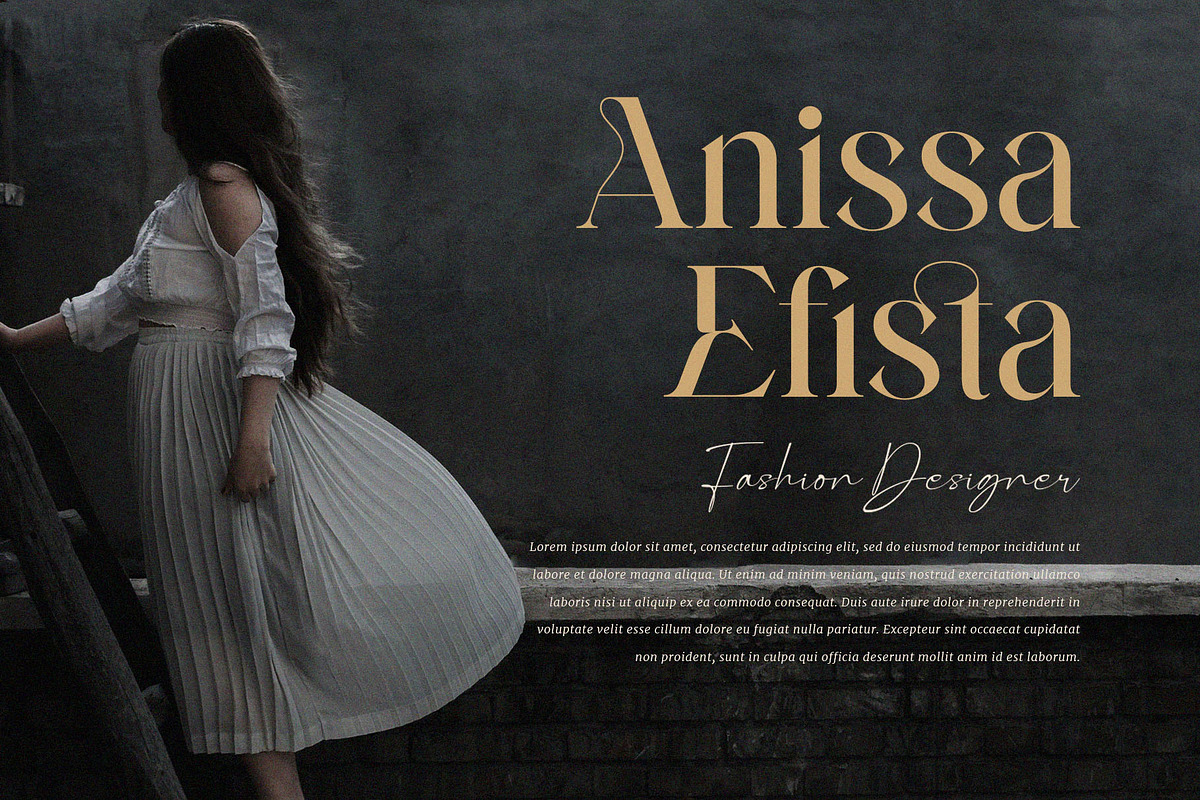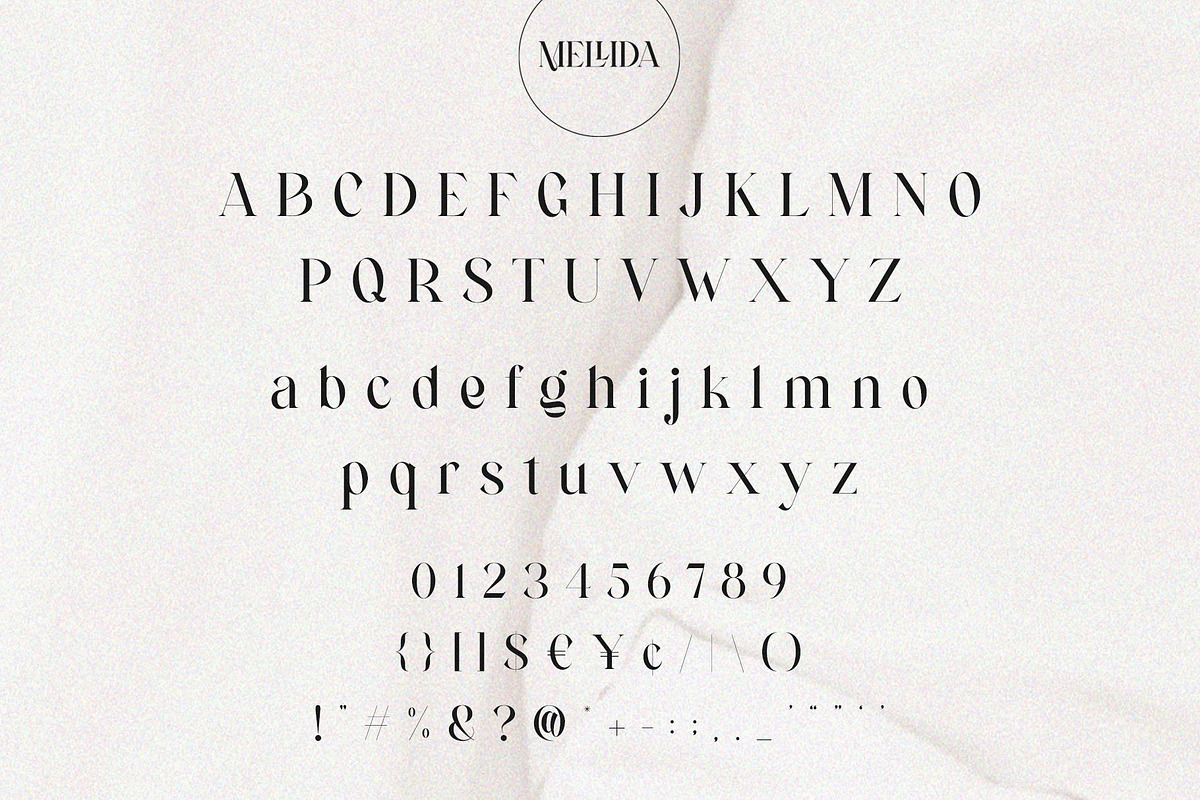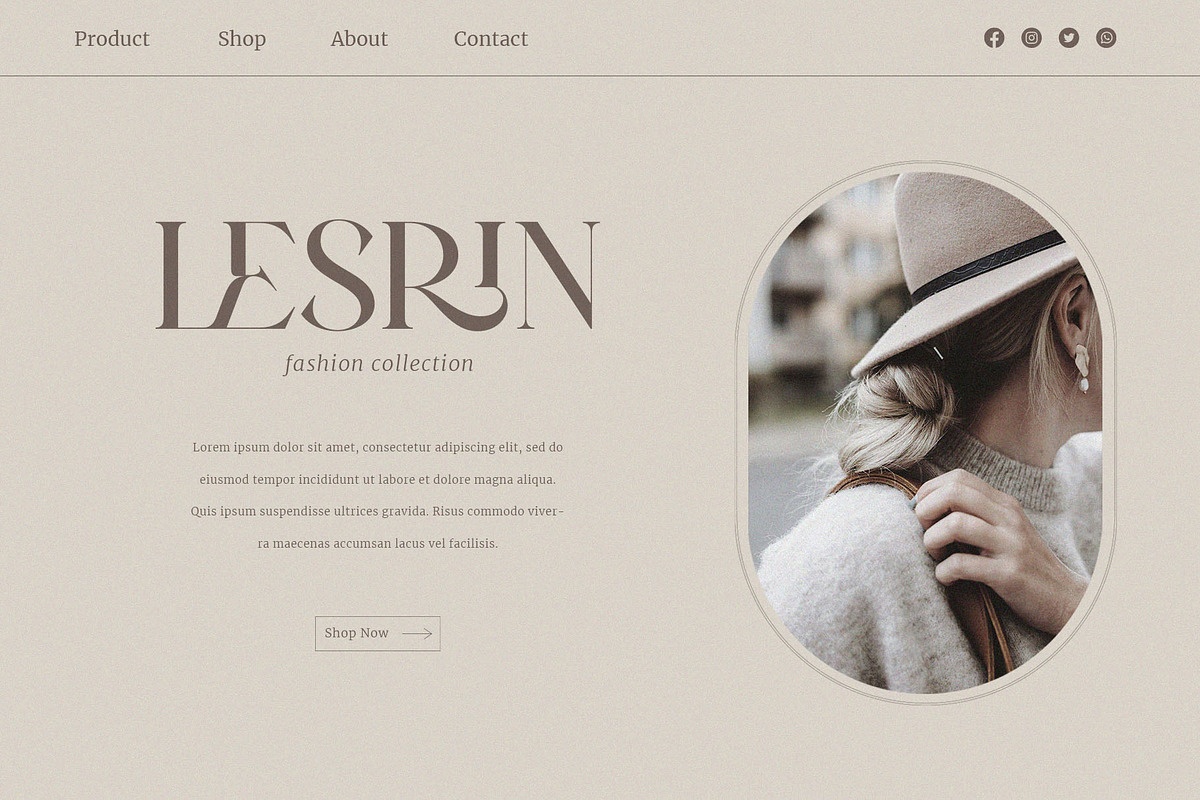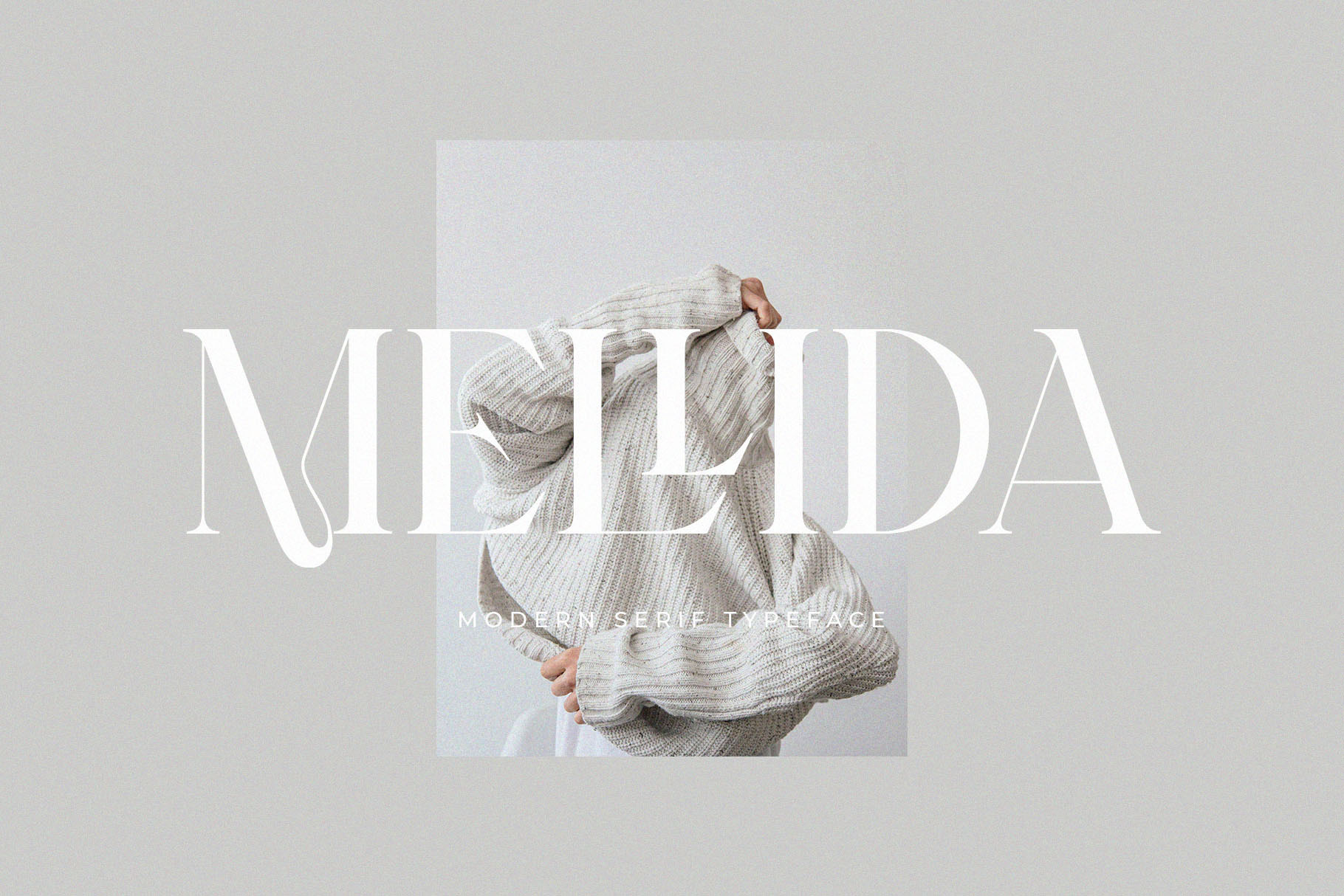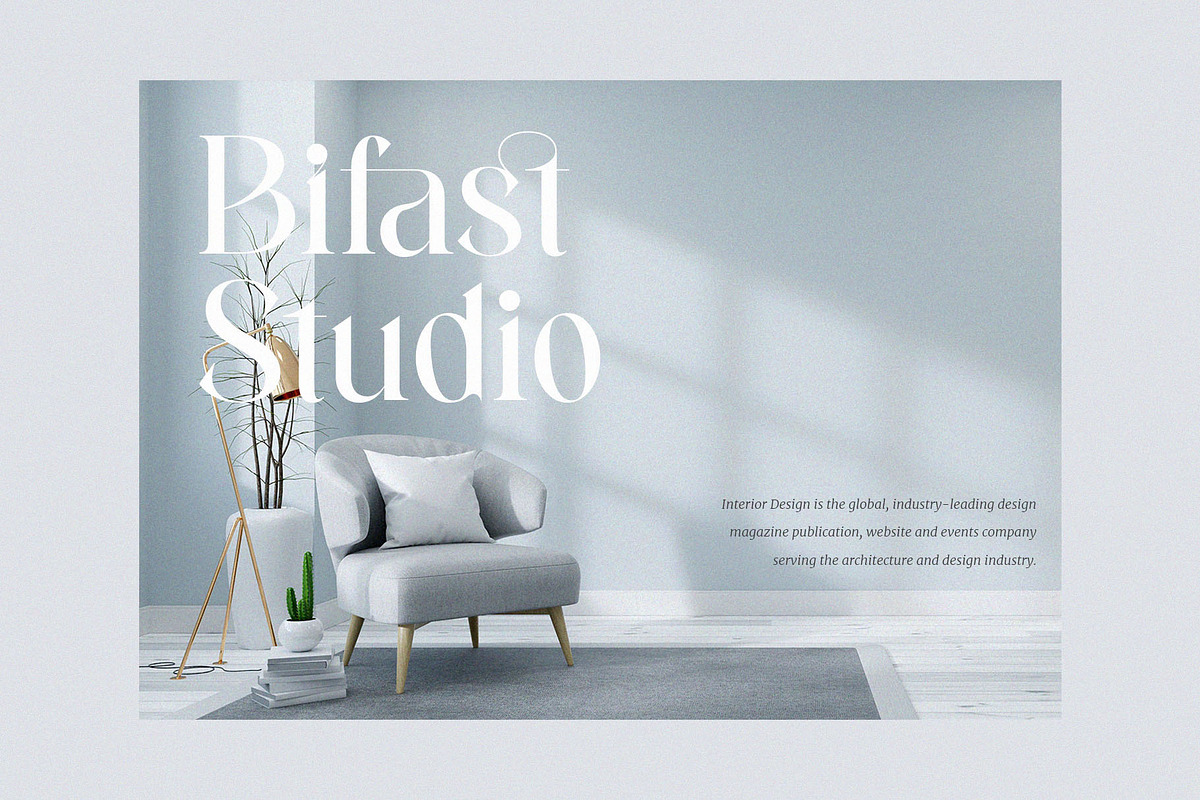
Mellida || Modern Serif Font
Introducing Mellida. Mellida is a modern and elegant typeface, best used as a display for headings, logos, branding, magazines, product packaging and invitations. Mellida come with clean lines and smooth curves give any project an extra touch of class.